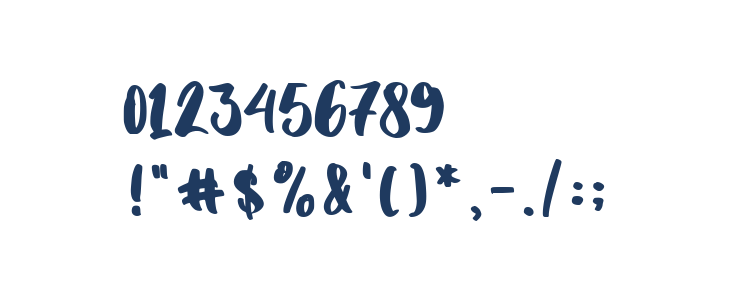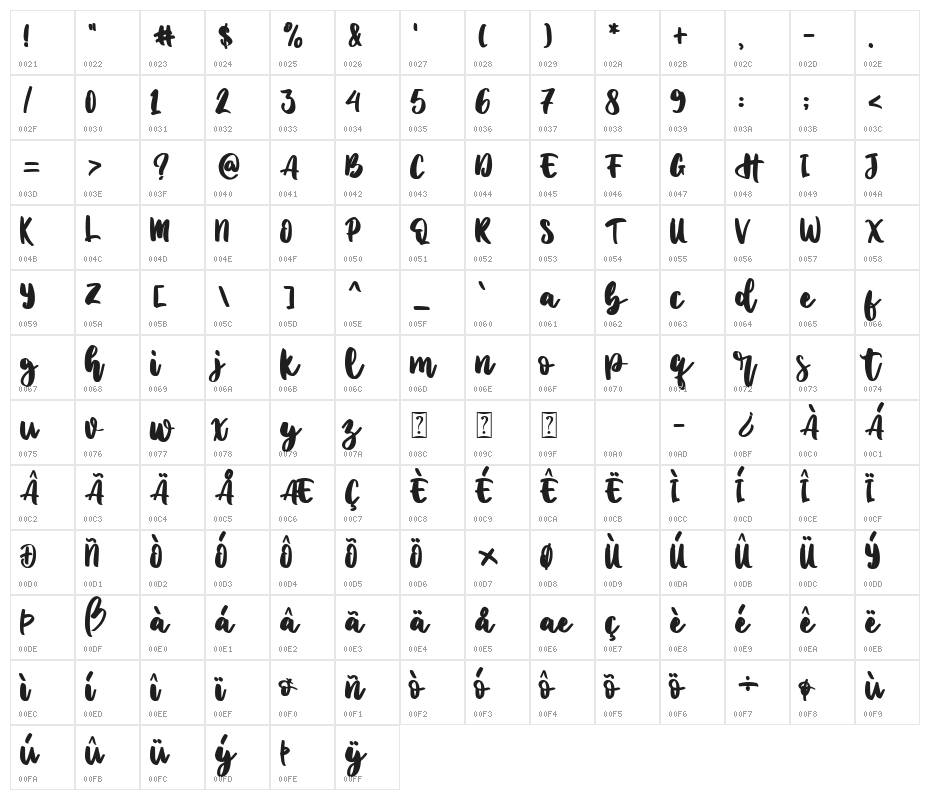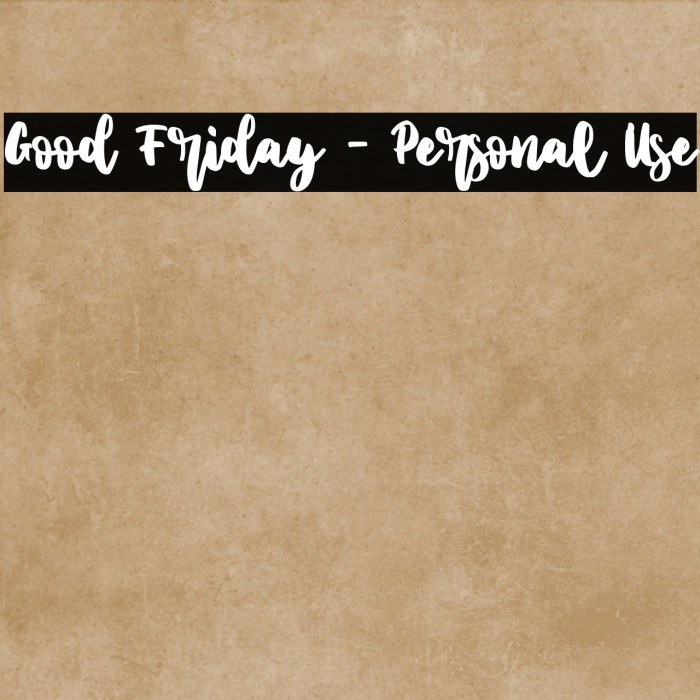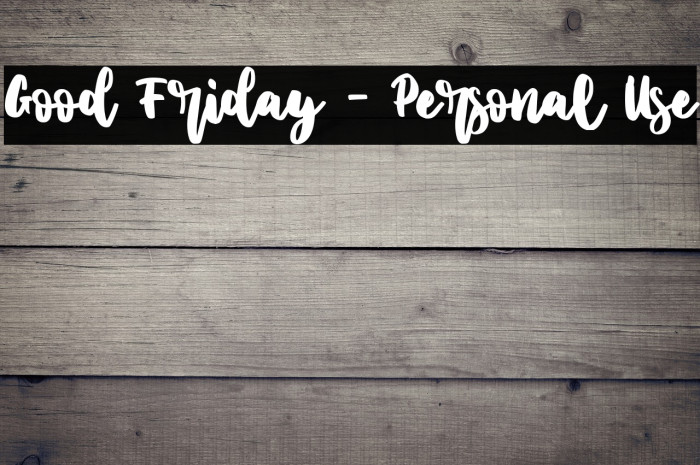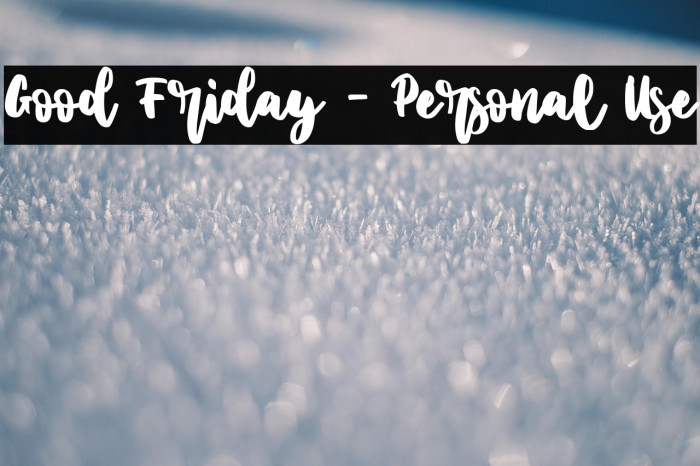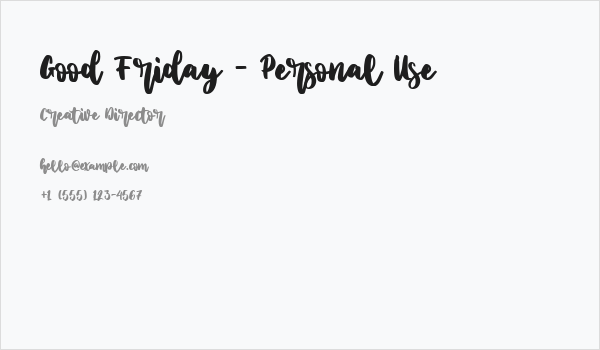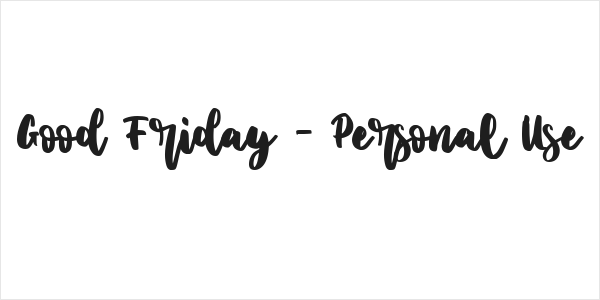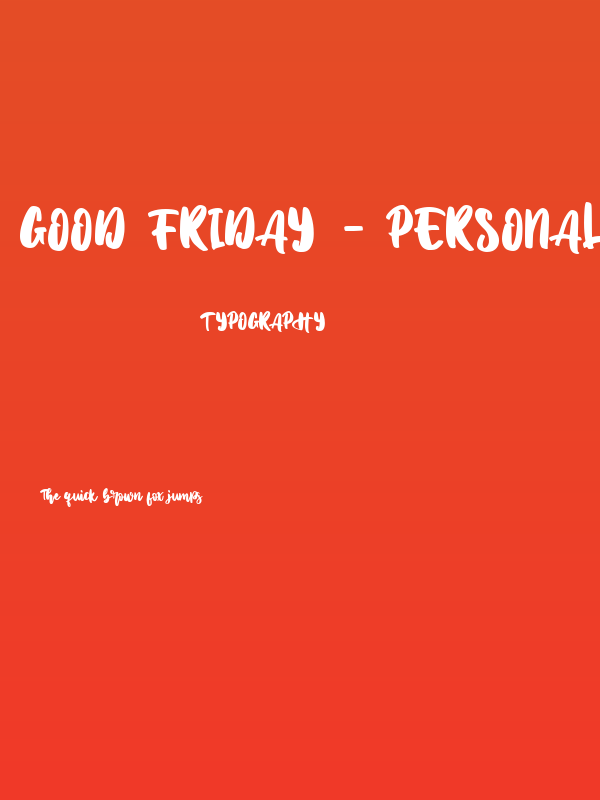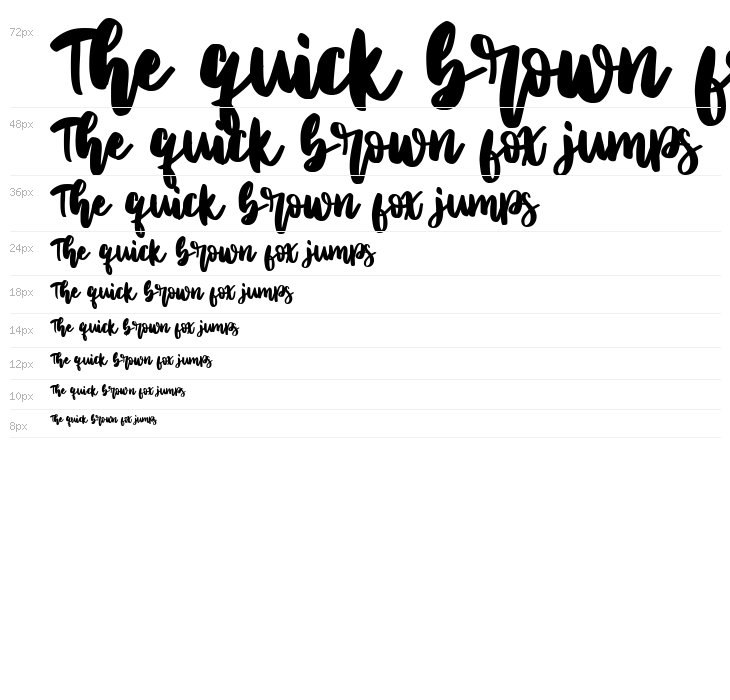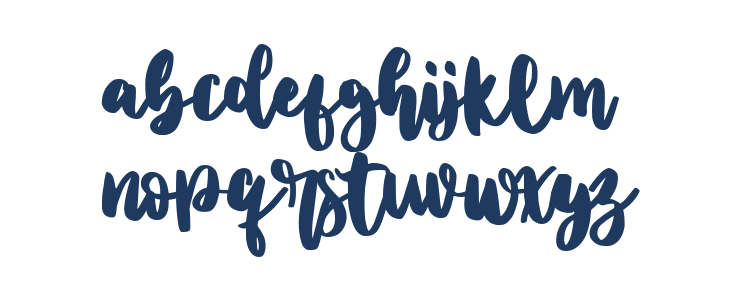
Good Friday - Personal Use Font
Good Friday - Personal Use Description
This font features a bold and expressive script style, characterized by its thick, flowing strokes and playful, handwritten appearance. The uppercase letters are dynamic and slightly slanted, giving a sense of movement and energy. The lowercase letters maintain a consistent style, with some letters featuring unique loops and swashes that add to the font's charm. Numbers and special characters are designed to match the overall aesthetic, ensuring a cohesive look across all text. The font's boldness and artistic flair make it suitable for creative projects that require a personal touch.
| Proposed Projects | Ideal for greeting cards, invitations, logos, and branding materials that require a personal and artistic touch. |